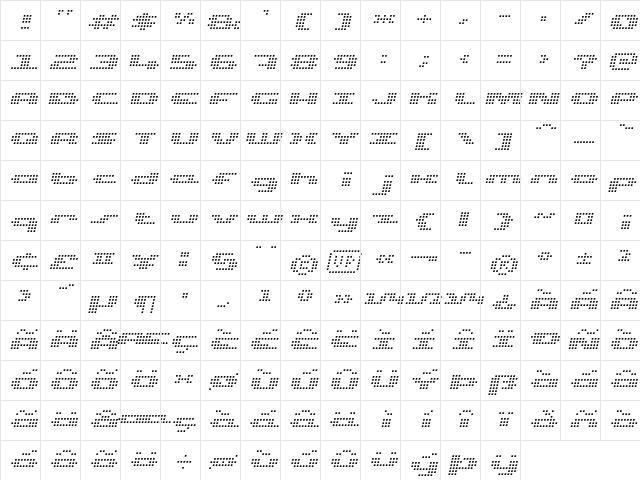
UP Tiny lcd four 8 Light Italic Font Preview
| Foundry | UrbanPixel |
| Designer | Michel Troy - from Montreal |
Design Context for UP Tiny lcd four 8 Typeface
UP Tiny lcd four 8 takes a measured approach to typography — its balanced proportions and neutral character make it a reliable workhorse for both digital and print work. Its italic angle brings a sense of urgency and motion to the letterforms. The delicate stroke weight brings airiness and refinement to layouts.
Pro Tip: Try UP Tiny lcd four 8 for annotation and caption copy alongside an upright companion — the contrast in angle creates a dynamic but ordered typographic system.